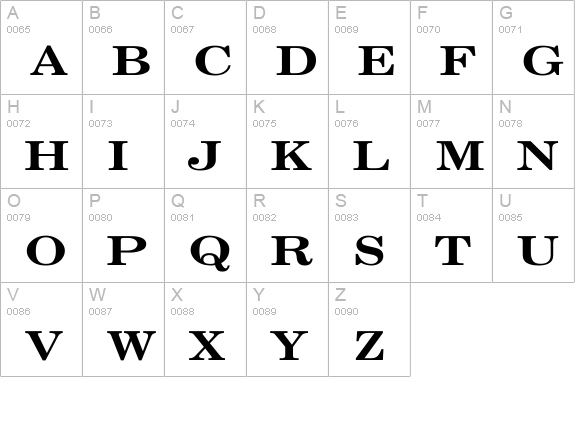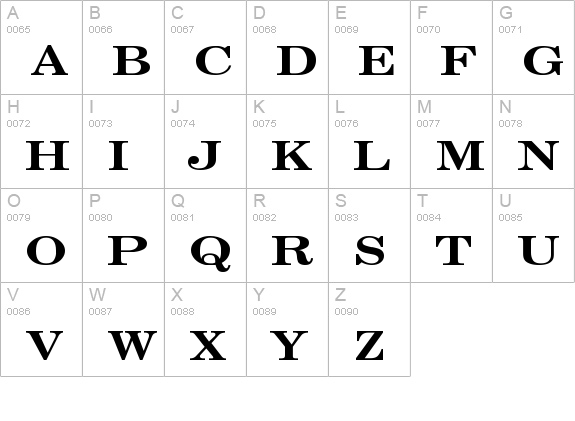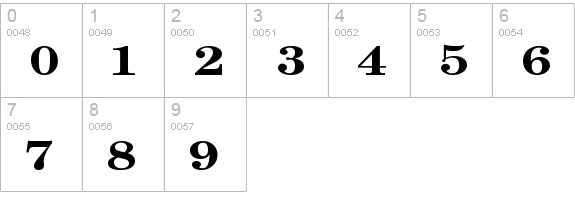
Century Schoolbook Wd Font Details
Century Schoolbook Wd is a timeless and elegant font that exudes sophistication and readability. With its classic serifs and well-balanced proportions, this typeface is perfect for conveying a sense of tradition and professionalism in any design project. Whether used for body text or headings, Century Schoolbook Wd offers a sense of authority and clarity that is sure to make your content stand out. The best part? Century Schoolbook Wd is available for free download at FontsMarket.com. Now you can enjoy the beauty and functionality of this exceptional font without any cost. Don't miss out on the opportunity to enhance your designs with the charm of Century Schoolbook Wd. Download it today and elevate your typography game to new heights!